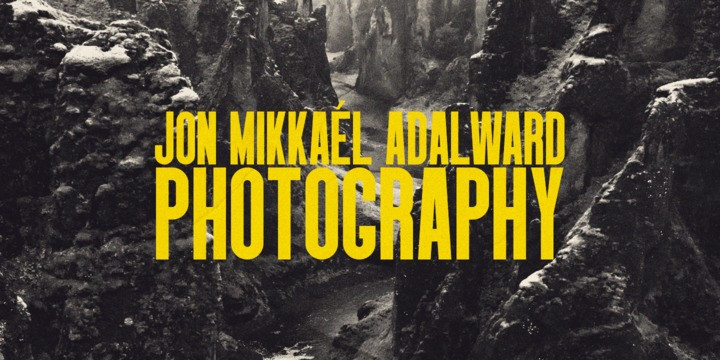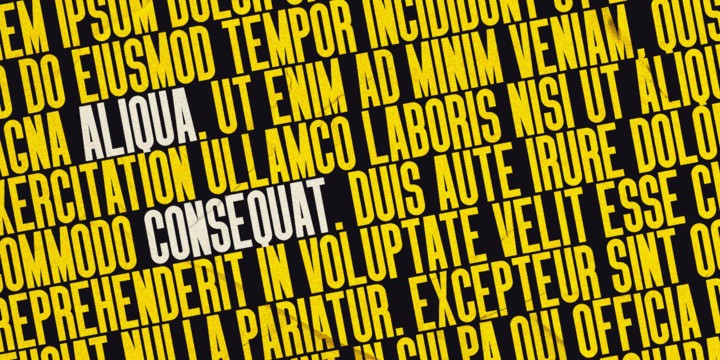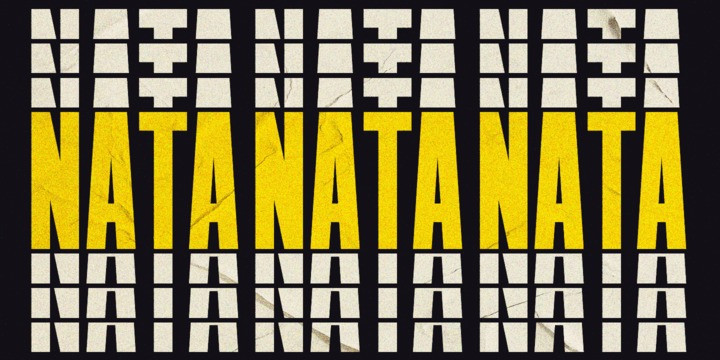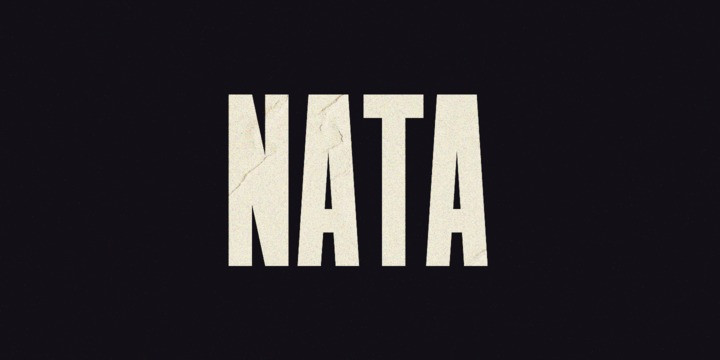
Nata Font
Nata is a sans serif family with fourteen weights plus matching italics. It was designed by Candi Erwanto in 2019. This sans serif family is based and influenced by geometric styles that were popular during the 1920s and 30s and have been optically corrected for better readability.
Nata has a functional look with a warm touch. While thin and black weights are great players in display size, lightweights, regular, and medium are suitable for longer texts. Small x-height and curbed shape provide a distinctive elegance.